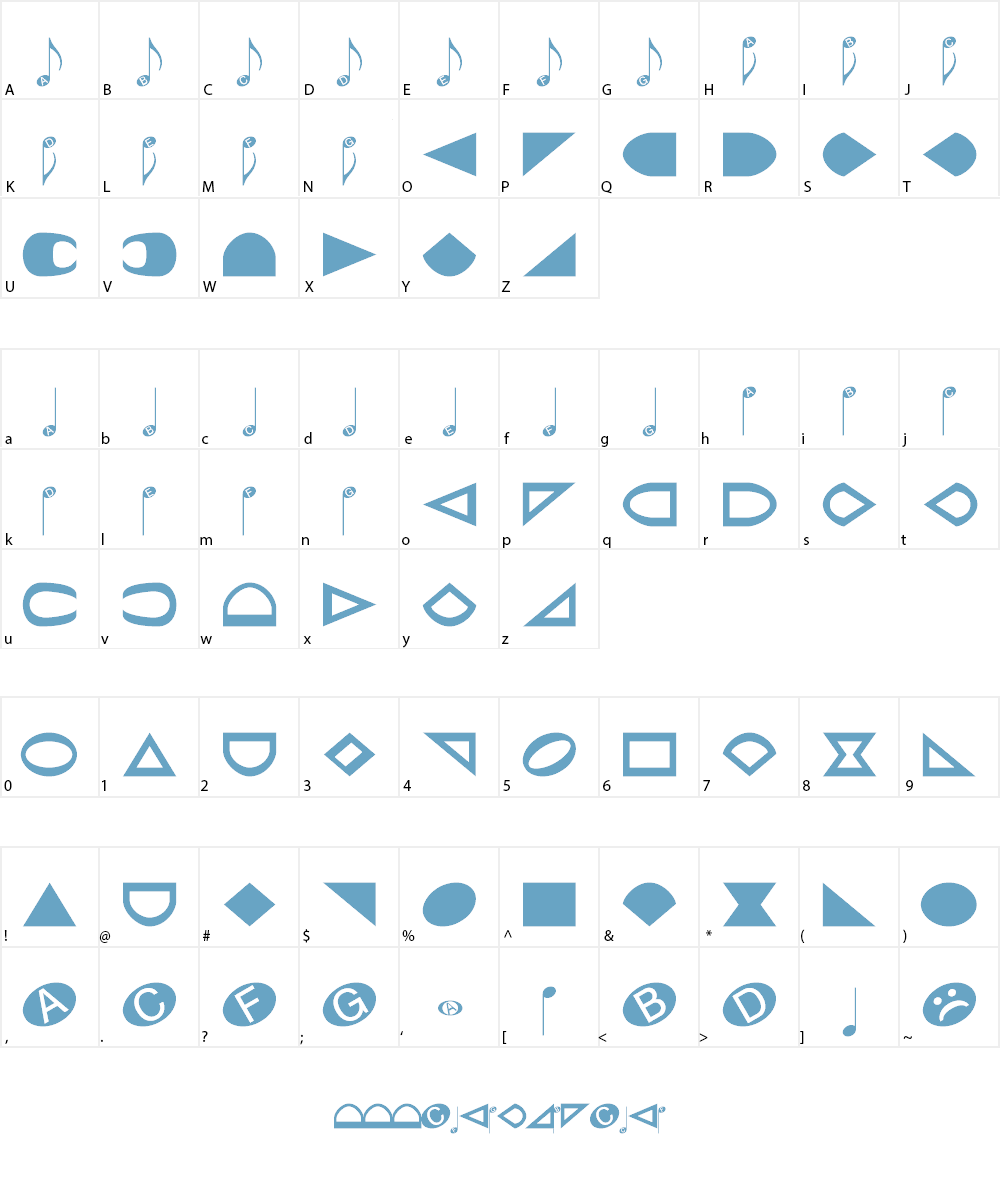
NoteHedz contains symbols used in most of the 4 or 7 shaped note systems for Sacred Harp, FaSoLa, Aiken, and Swan. You have to provide your own staff and stems. In addition, letters A - G are enclosed in ordinary notes, and there are a number of other symbols.